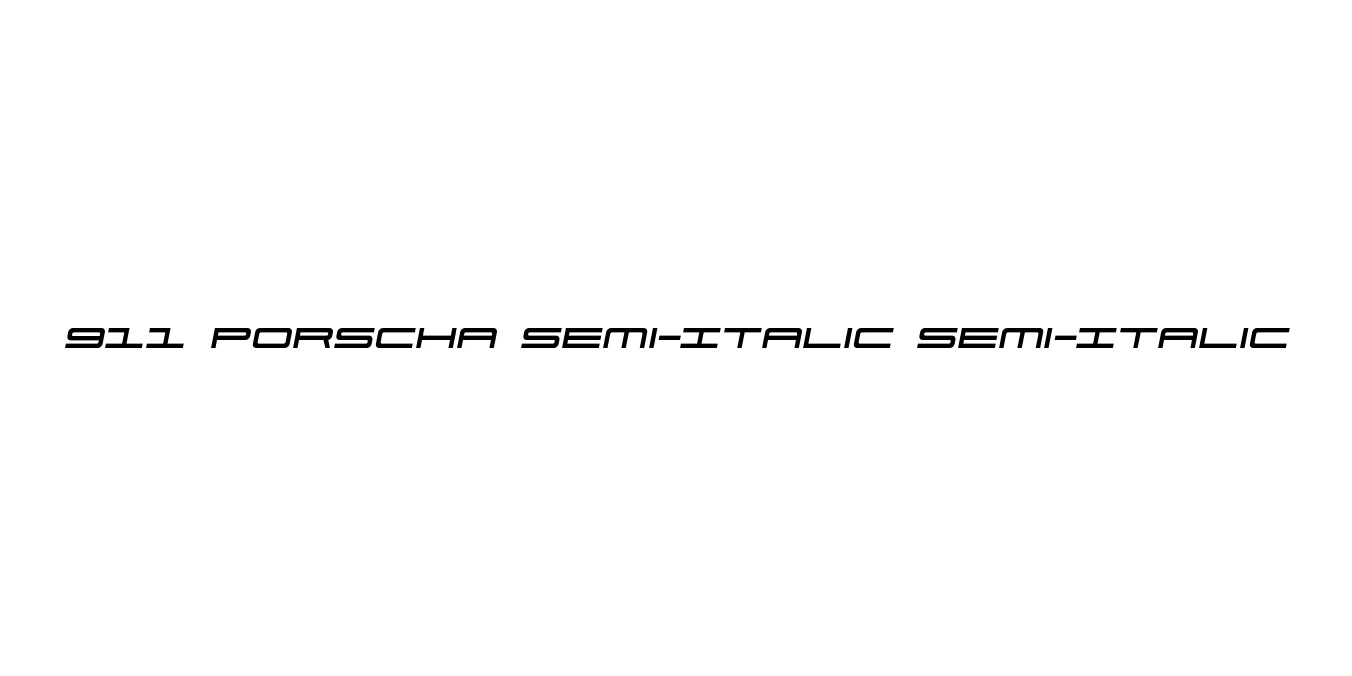
911 Porscha Semi-Italic Semi-Italic
Designed by Iconian Fonts (Dan Zadorozny)
| Category | Techno / Automotive |
| Designer | Iconian Fonts (Dan Zadorozny) |
| Similar Fonts | Eurostile, Microgramma, Venus Rising, Porsche Design |
911 Porscha Semi-Italic is a stylized, wide-set techno font inspired by the iconic typographic branding of the luxury automobile manufacturer, Porsche. Designed by Dan Zadorozny of Iconian Fonts, this typeface captures the essence of high-performance engineering and sleek, modern aesthetics. The Semi-Italic variant adds a sense of motion and speed, making it an ideal choice for projects that require a futuristic, high-tech, or automotive-themed visual identity.
Constructed with clean lines and a distinctly horizontal emphasis, 911 Porscha works exceptionally well in display settings. Its bold presence and wide character mapping make it perfect for logos, headers, and branding materials that need to convey reliability and luxury. Since its release, it has become a popular choice among designers looking to replicate the high-end look of European automotive design in digital and print media.
911 Porscha Semi-Italic Best Uses
Creating strong, recognizable brand identities for car-related businesses or tech firms.
Eye-catching titles for websites focusing on technology or luxury goods.
Dynamic layouts for racing events, automotive shows, or product launches.
Impactful graphics for high-speed or high-tech visual content.